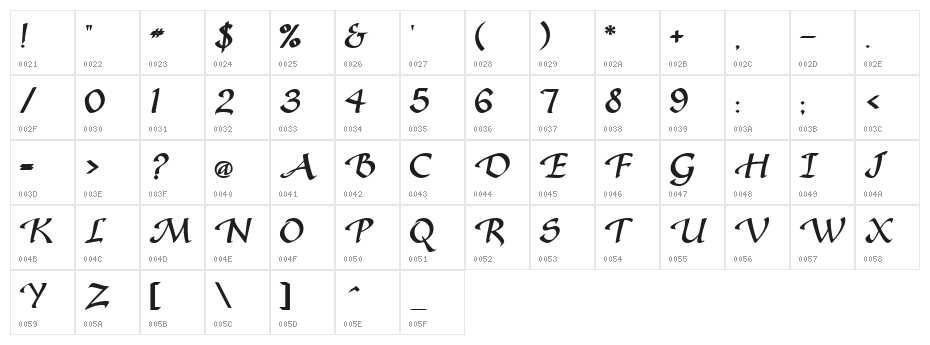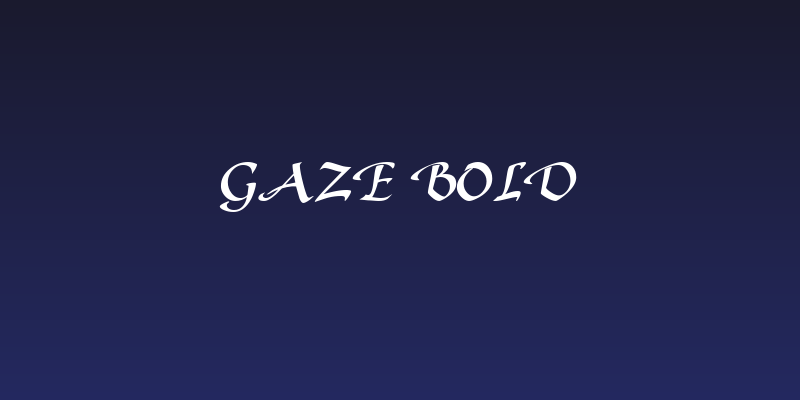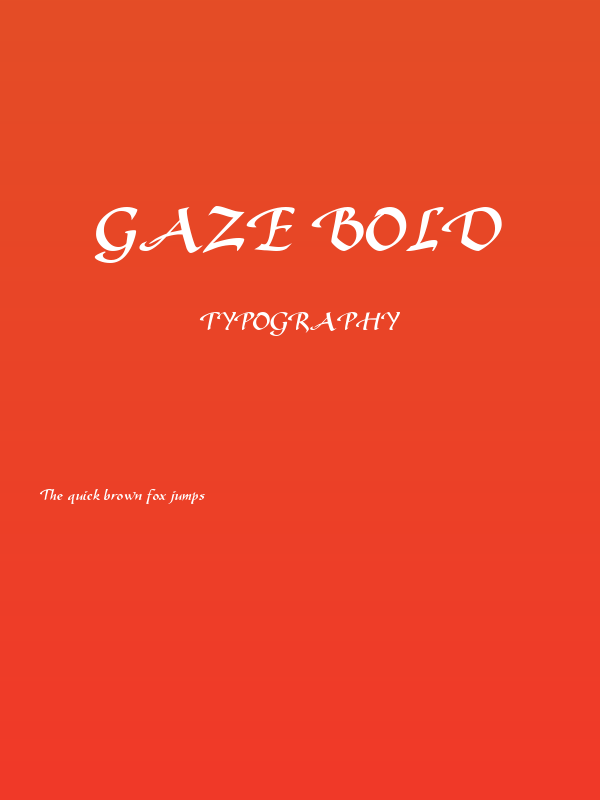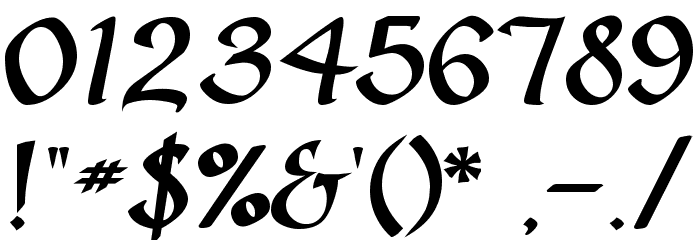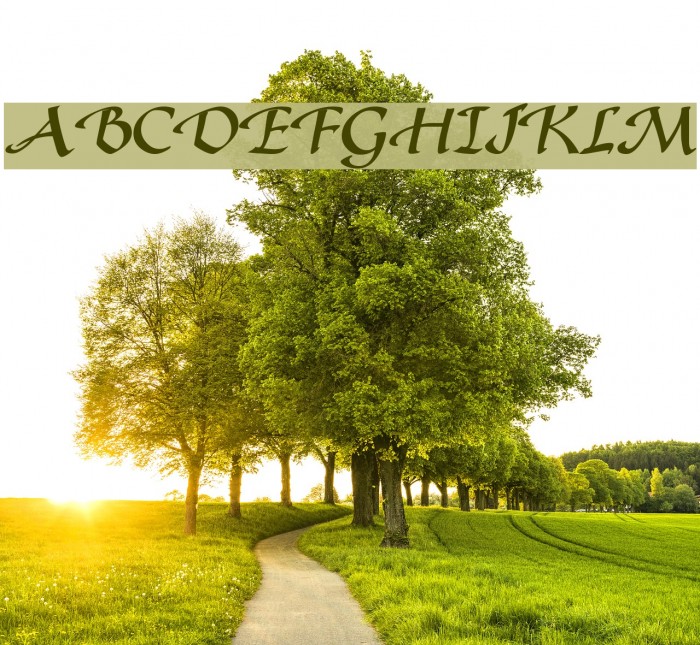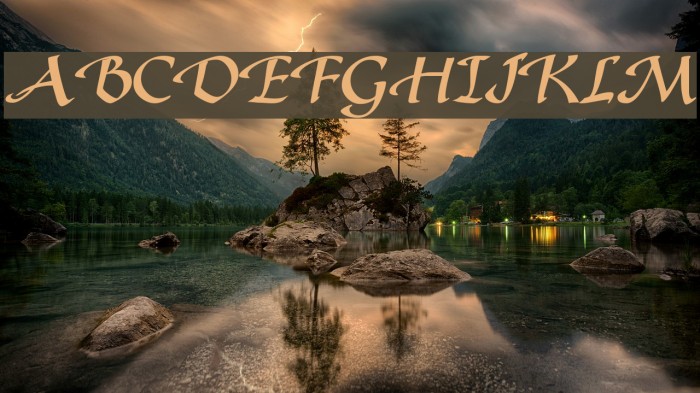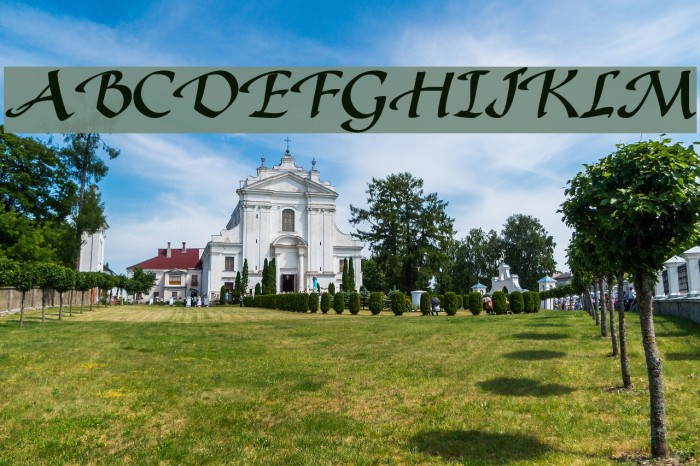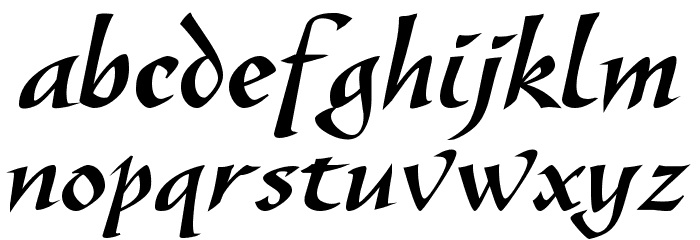
Gaze Bold Font
Gaze Bold Description
This font features a dynamic and elegant script style with a bold presence. The characters are slightly slanted, giving a sense of motion and fluidity. The uppercase letters are distinct with sharp, angular strokes, while the lowercase letters maintain a smooth, flowing appearance. The numerals are consistent with the overall style, offering a cohesive look across all characters. Special characters are well-integrated, maintaining the font's unique flair. The bold weight enhances its visibility, making it suitable for impactful designs.
| Overall Style | Elegant |
| Use Case | Logos, Invitations, Headlines |
| Proposed Projects | Ideal for wedding invitations, branding, logo design, and elegant packaging. |